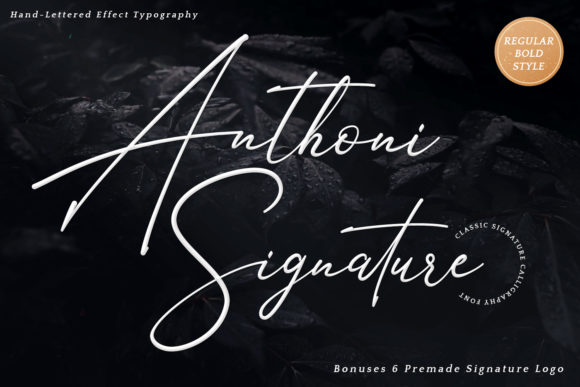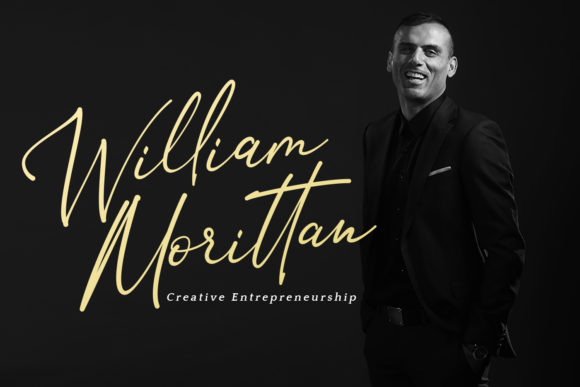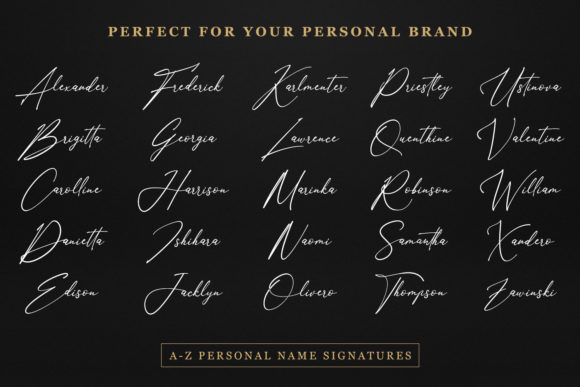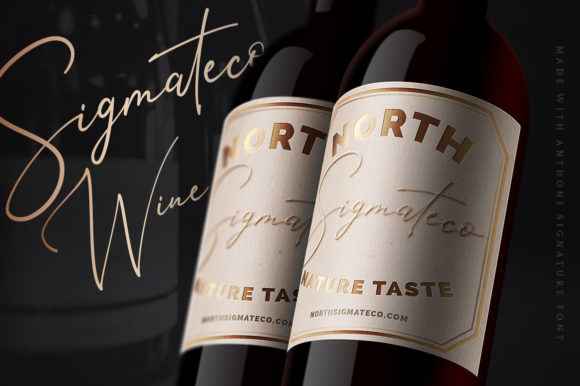
Anthoni Signature Font
About the Anthoni Signature Font
Meet Anthoni Signature Font, a stunning font that brings a touch of elegance and professionalism to any design. Anthoni Signature is a handwritten signature script with a natural & stylish flow. It will add an authentic touch to any design idea.
Anthoni Signature excels in applications requiring a personal touch, such as logos, wedding invitations, or short quotes in promotional materials. Its elegant, yet slightly informal style works well for branding that aims for a sophisticated yet approachable feel. However, avoid using it for body text or lengthy passages; its script nature hinders readability at smaller sizes.
The font’s inherent personality is sophisticated yet friendly. It conveys authenticity and a sense of handcrafted quality. To maintain visual balance, pair Anthoni Signature with a clean sans-serif like Lato for body text or a classic serif like Garamond for a more formal feel. A geometric sans-serif could also create interesting contrast, adding a modern edge.
Consider pairing it with a simple, understated script for a layered effect, but be mindful of legibility. Avoid pairing with overly decorative or heavily stylized fonts which could clash with Anthoni Signature’s natural flow.